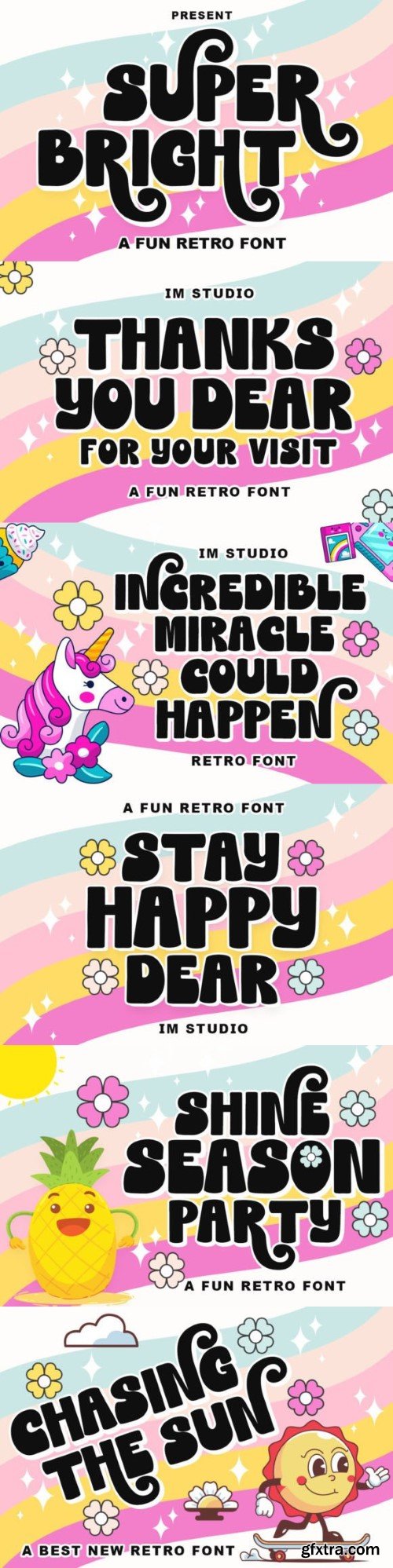
超级明亮字体
Super Bright is a cute and fun display font. The imbalance adds a unique and bold statement to the project. It will look great on Stickers, T-Shirts, Mugs and more!
Keep in mind that the font is PUA coded, meaning you can access all the fun glyphs and swashes easily.